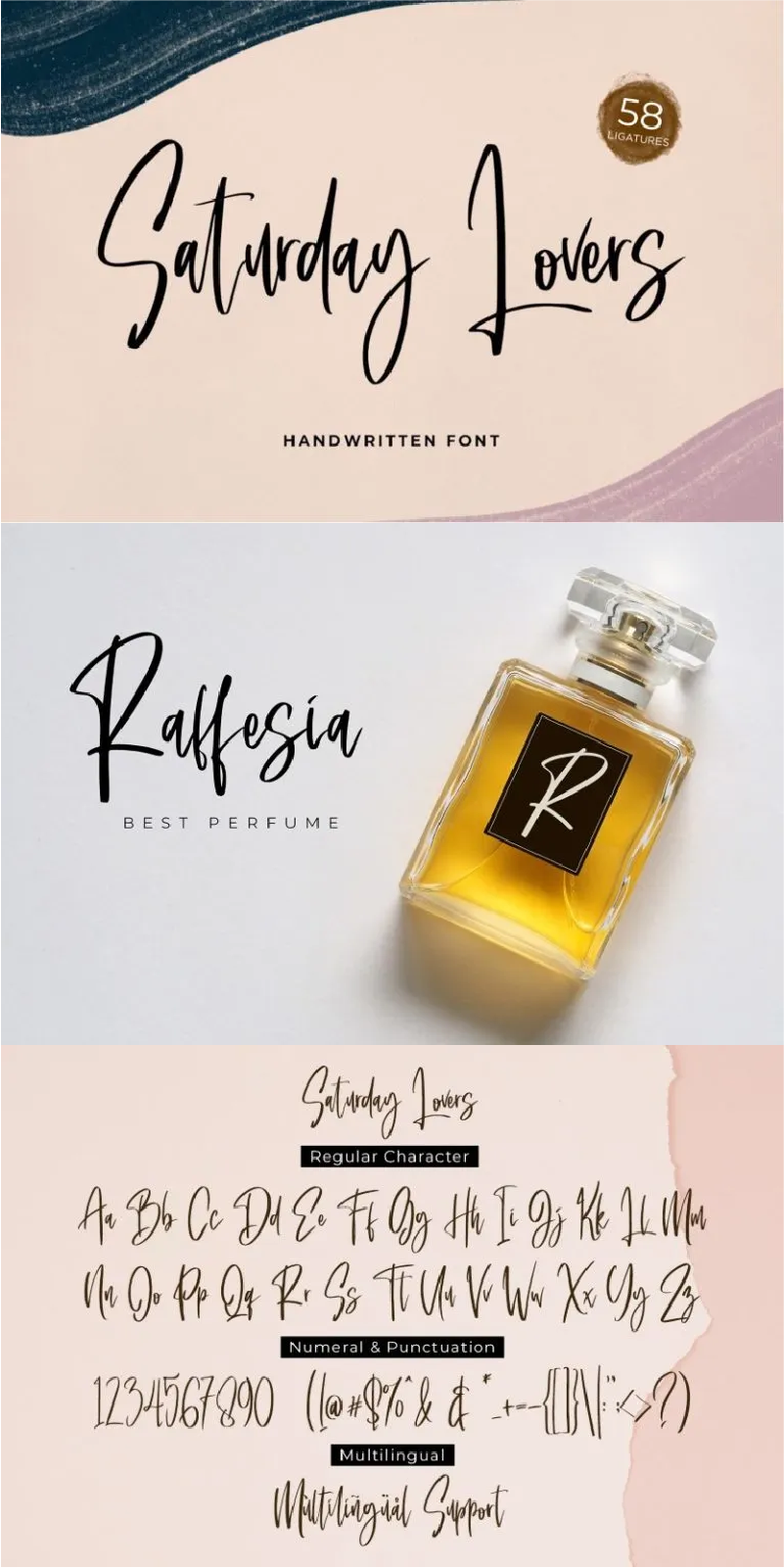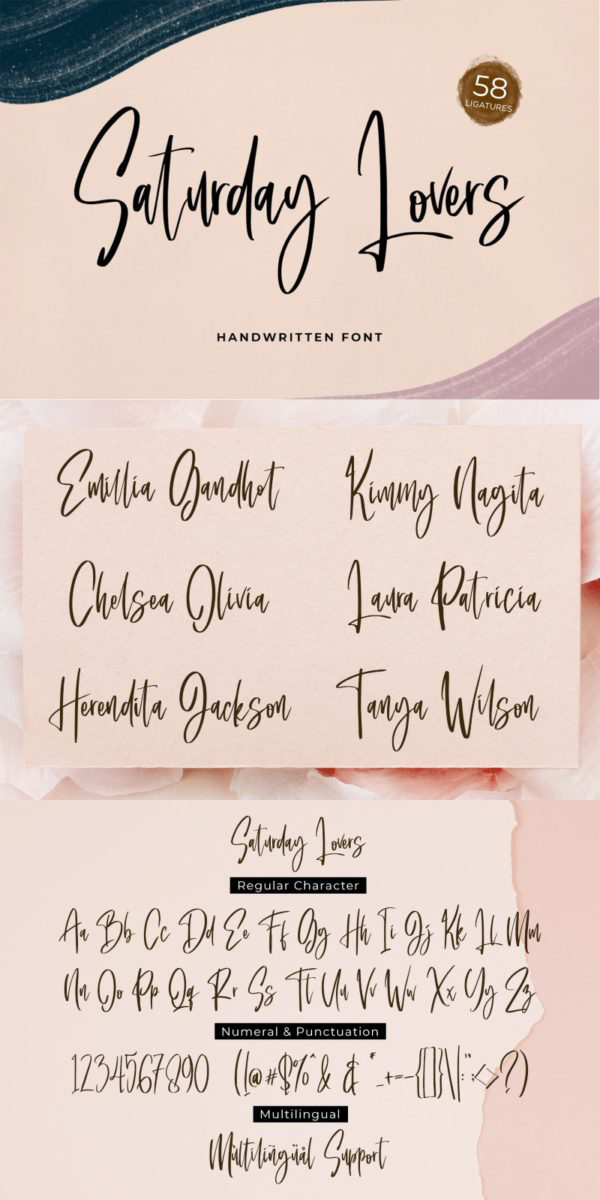
Saturday Lovers Font
About Saturday Lovers
Introducing Saturday Lovers Font. With a classy and natural handwritten style, it brings a classy and chic typeface. Saturday Lovers is best used for branding, social media campaign, logotype, quotes and etc. See the previews above to get some inspiration on how you can use them. Happy Designing!